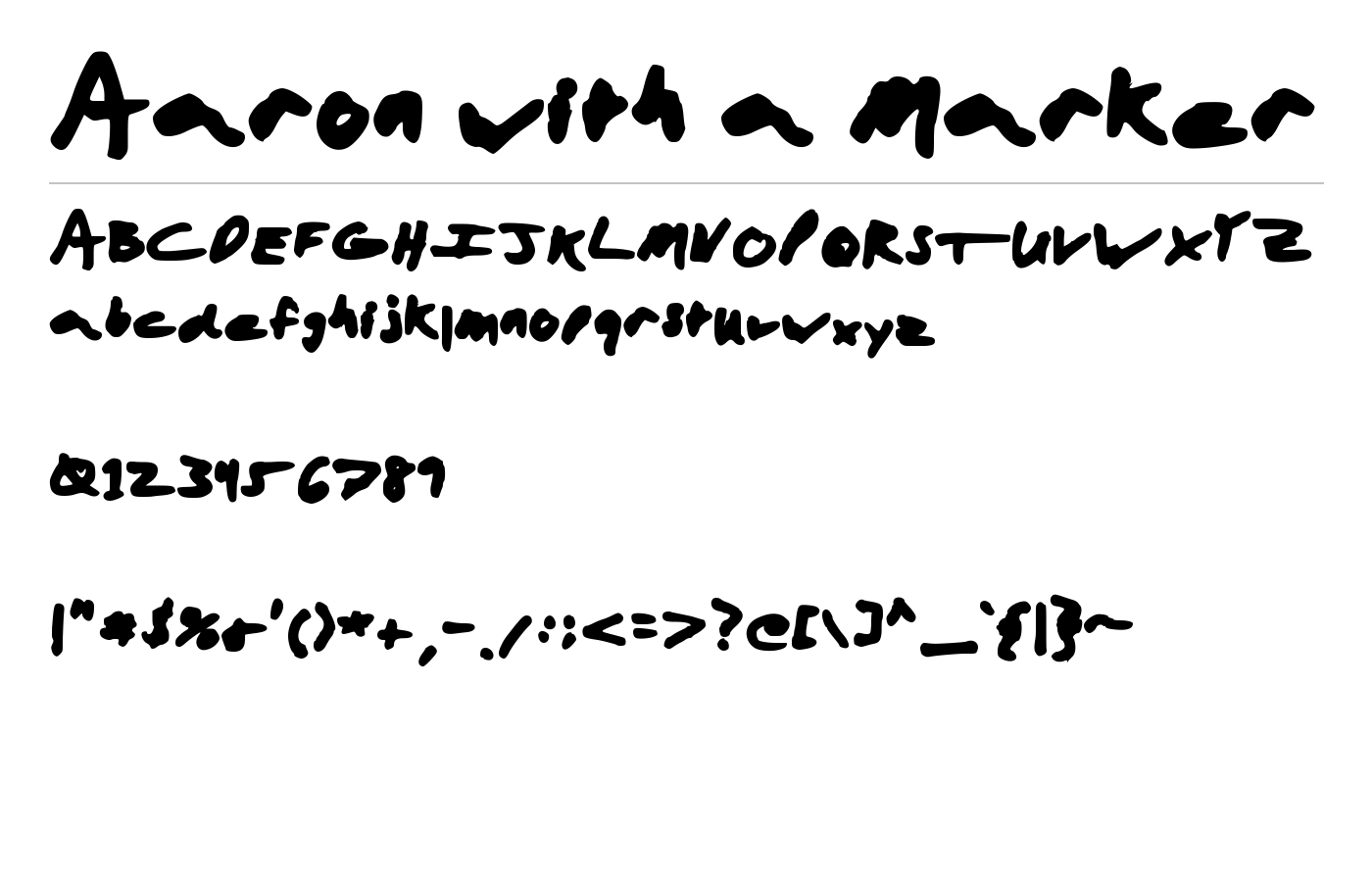
Aaron with a Marker is a playful, bold handwritten font that mimics the thick, uneven strokes of a marker pen. Its casual and informal style with irregular shapes and varying stroke widths makes it perfect for creative, fun, and personal designs such as invitations, posters, and branding aimed at a youthful audience. This font adds a friendly, approachable vibe and works best in headlines or short text where a handmade, expressive feel is desired.
Aaron with a Marker Font
About Aaron with a Marker Font